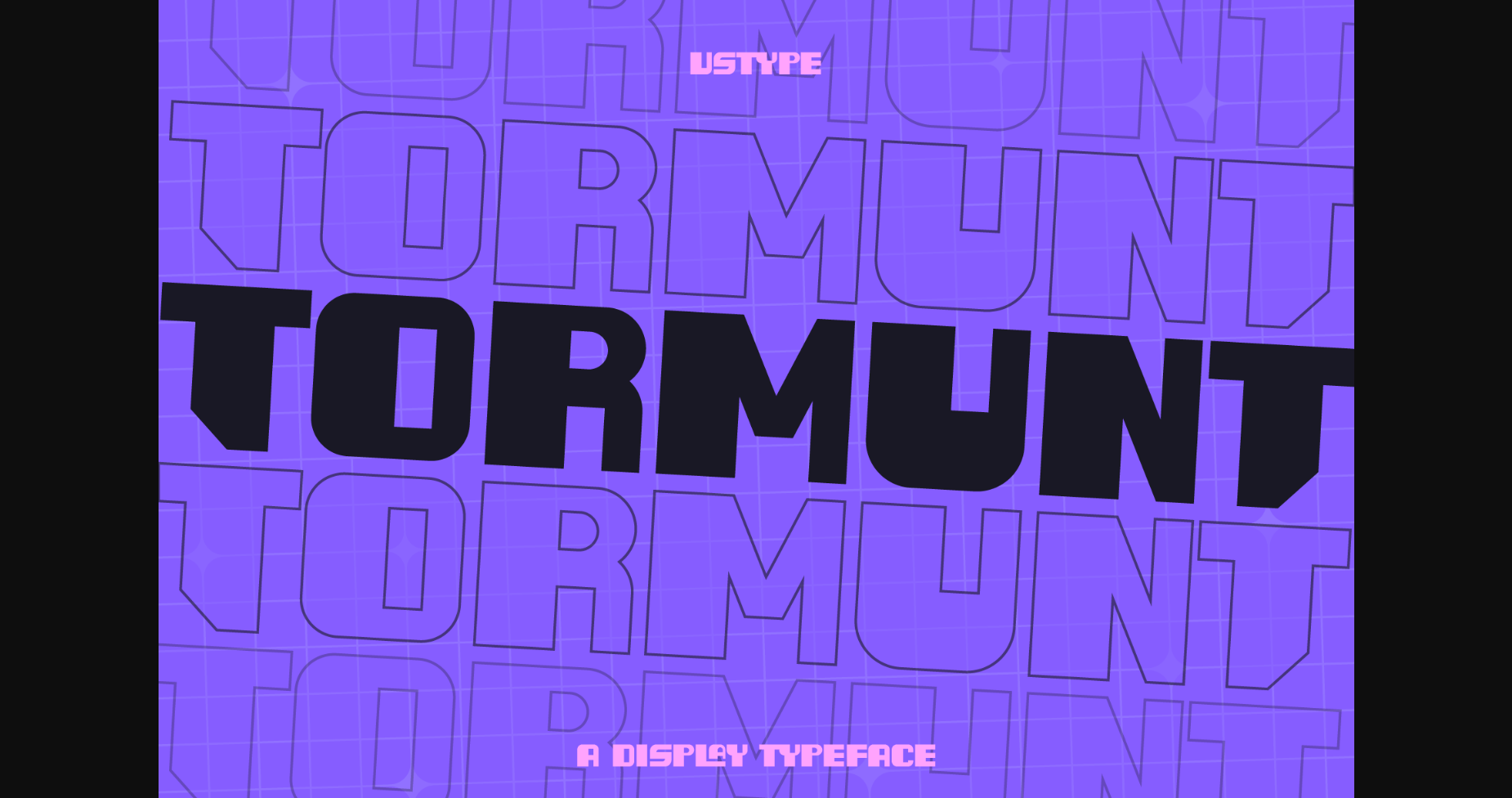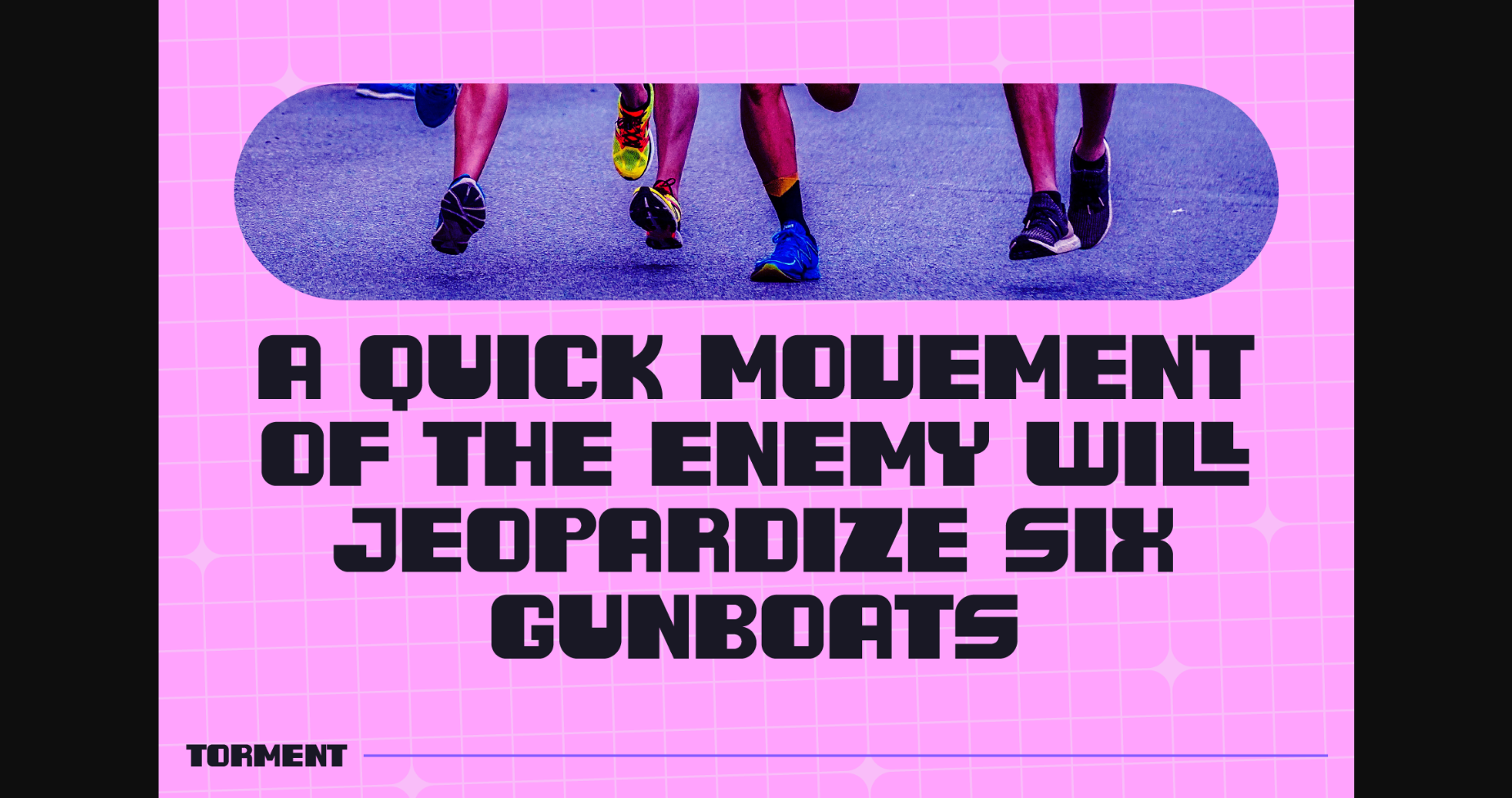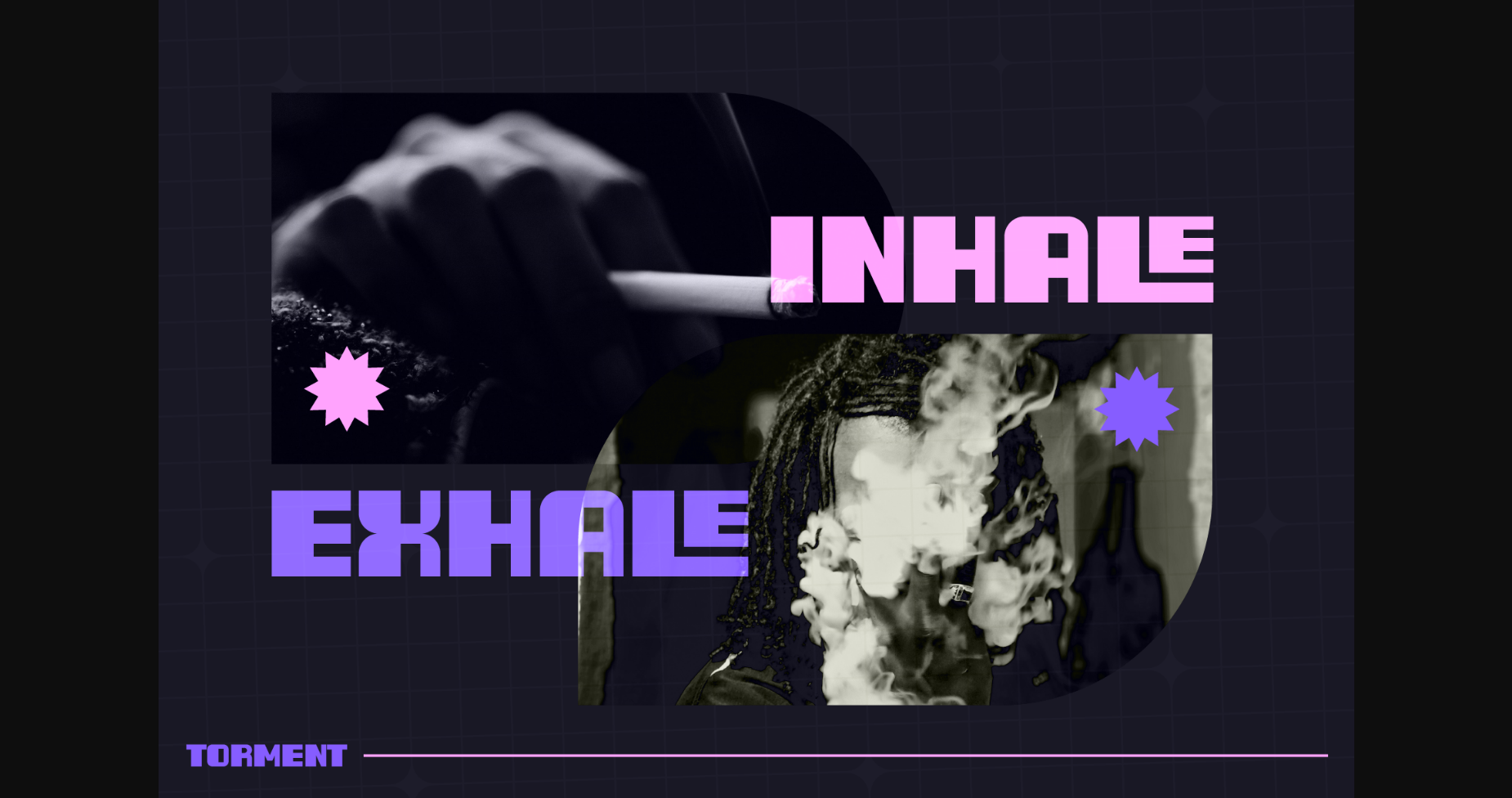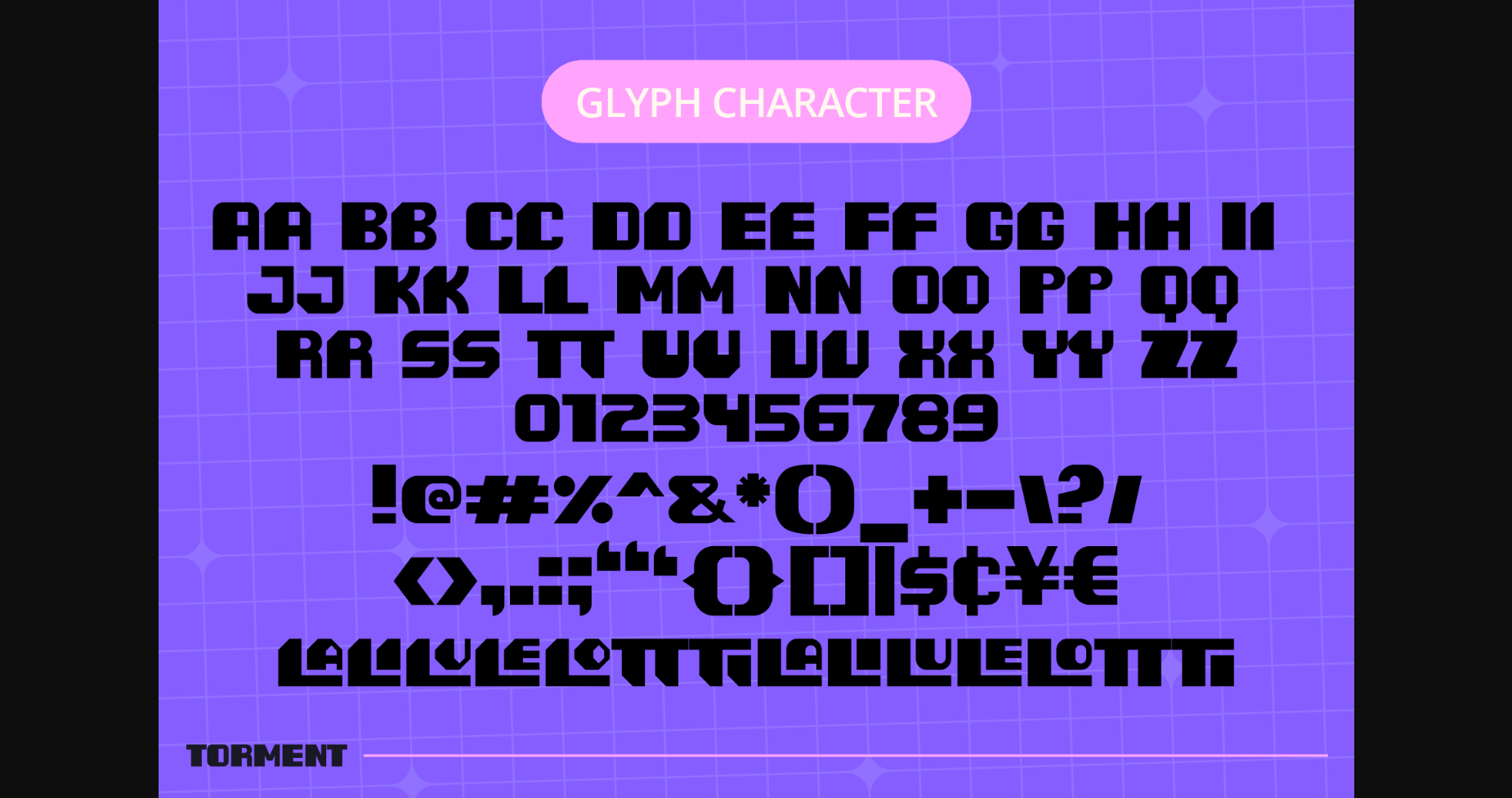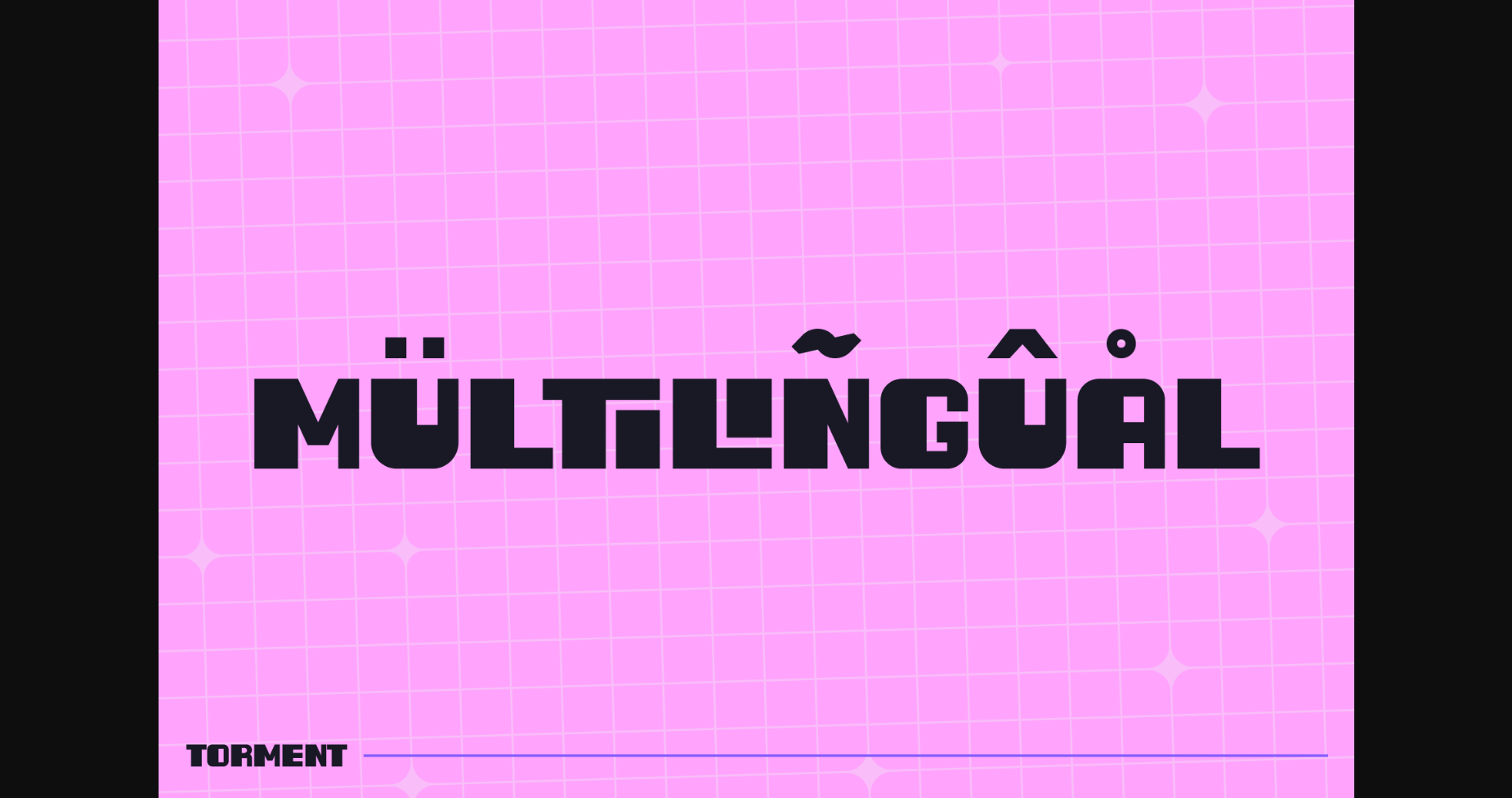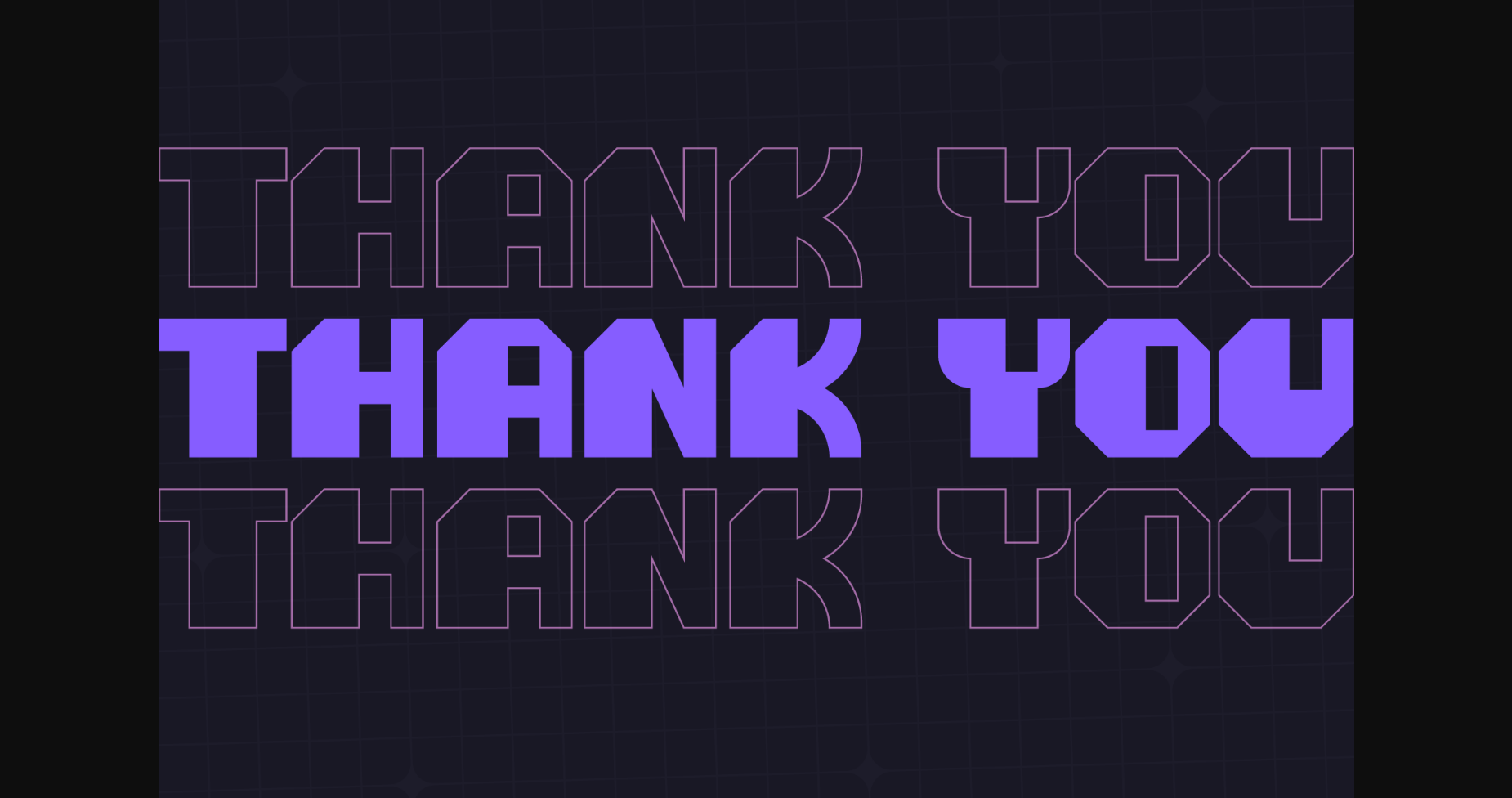
Tormunt Font
About Tormunt Font
Get ready to make a bold statement with Tormunt! With its strong lines and eye-catching design, this font is perfect for posters, banners, and other projects that require a powerful and masculine look.